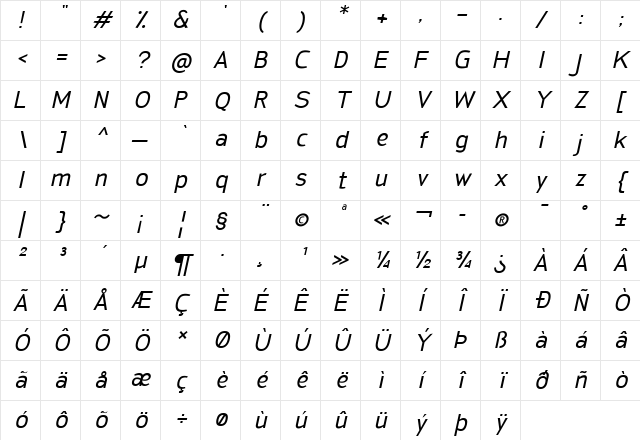
San Frediano is a composed and adaptable typeface that performs quietly and consistently across a wide range of design contexts. The slanted form adds forward momentum and visual energy.
Pro Tip: Use San Frediano for emphasis, pull quotes, and subheadings where its slanted energy can add rhythm to the layout.